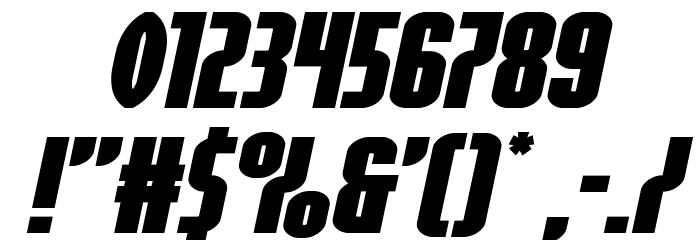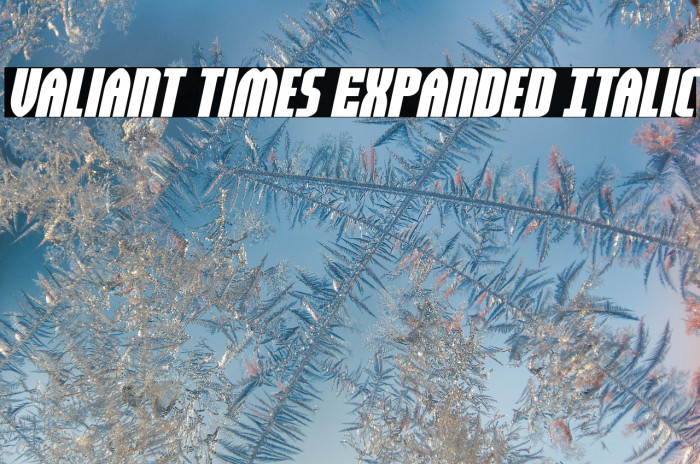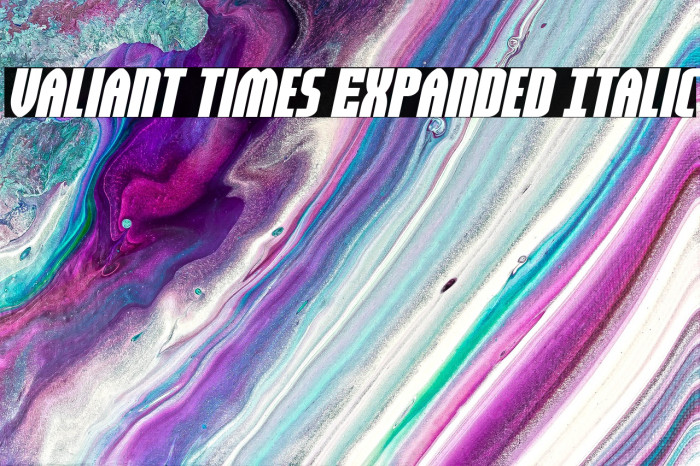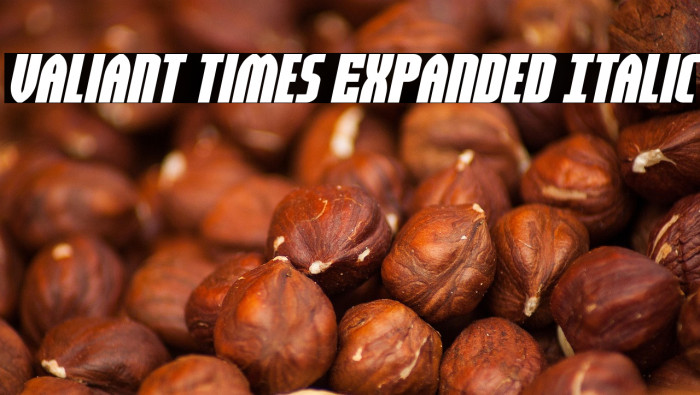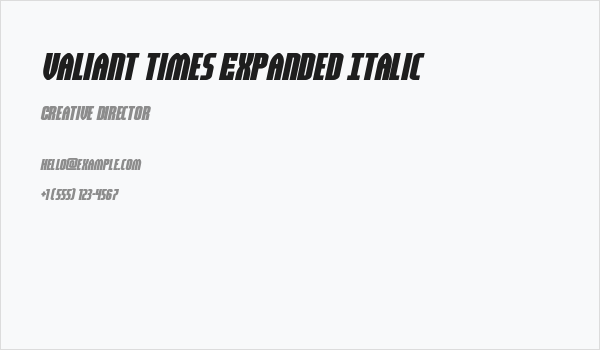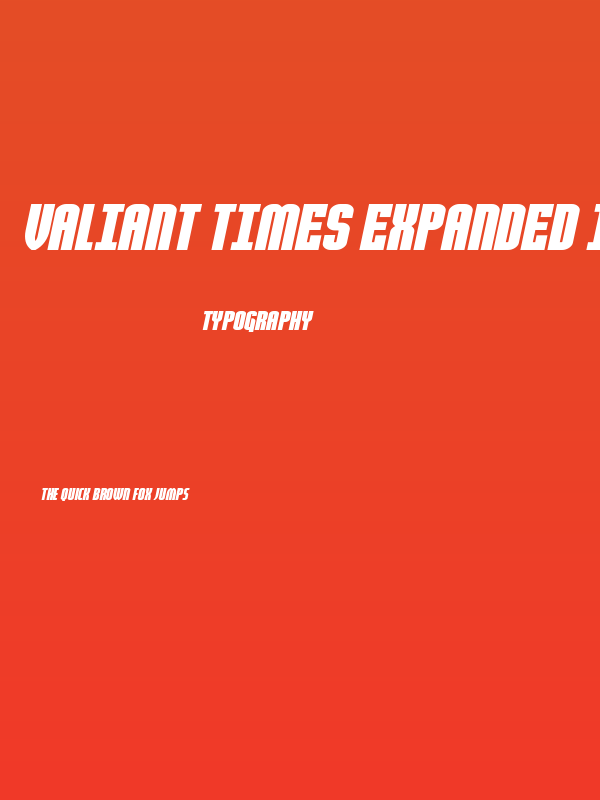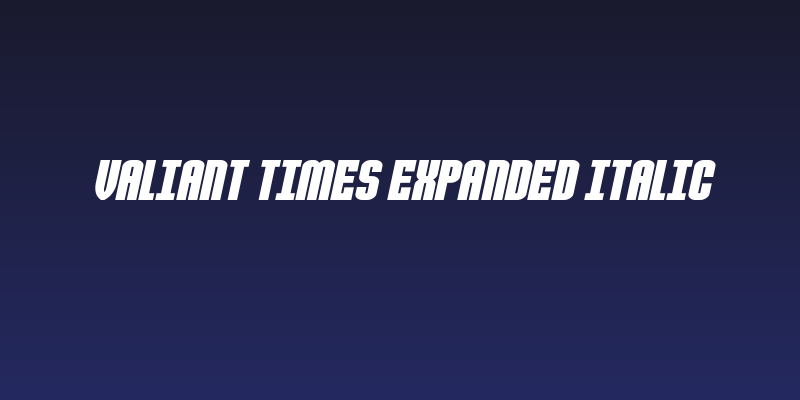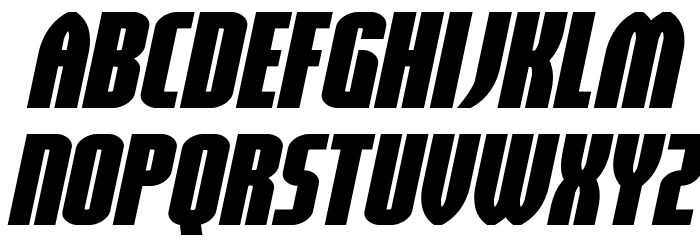
Valiant Times Expanded Italic Font
Valiant Times Expanded Italic Description
This typeface features bold, expansive characters with a distinct italic slant, giving it a dynamic and forward-moving appearance. The letters are wide and robust, with a strong presence that commands attention. The strokes are consistent in thickness, providing a uniform look across all characters. The font includes both uppercase and lowercase letters, numerals, and a variety of special characters, making it versatile for different design needs. Its boldness and slant suggest a sense of urgency and modernity, suitable for impactful headlines and branding.
| Proposed Projects | Ideal for sports branding, dynamic posters, eye-catching headlines, and modern advertising campaigns. |